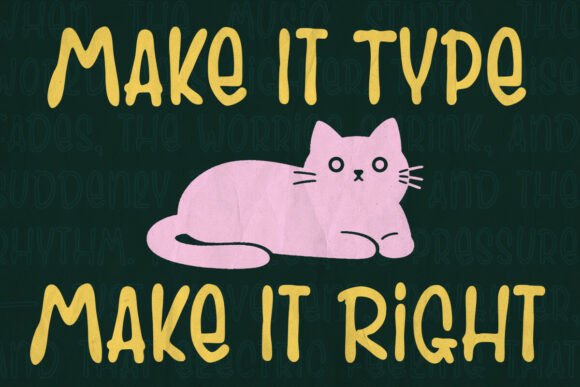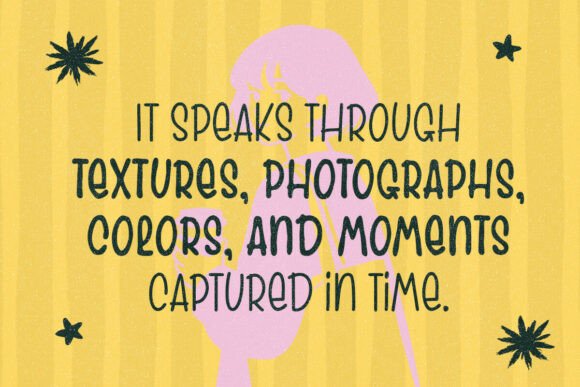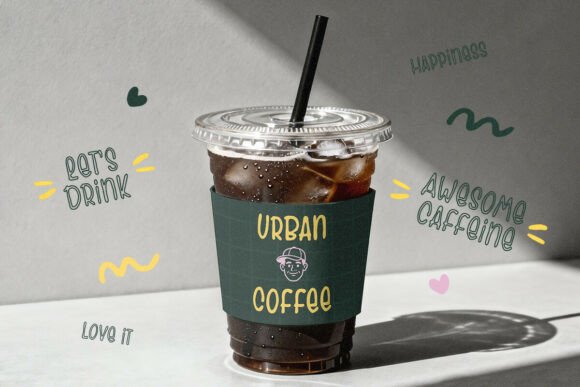
Introduction to Gramel Font
You’ve spent hours agonizing over the perfect typography for your creative project, and yet, it still feels like something’s missing. That’s when you stumble upon the perfect design resource – a font that breathes life into your words. For designers, finding that elusive font can be a game-changer. It’s the difference between a bland, generic look and a truly eye-catching visual identity.
Enter Gramel Font, a stylish handwritten display font that brings natural personality and expressive charm to your creative typography. With its smooth strokes, organic curves, and dynamic character shapes, Gramel Font is the perfect solution for designers who want to add a personal, artistic touch to their visual projects.
Whether you’re working on a free download project or a high-quality commercial design, Gramel Font is a valuable resource that can elevate your work and leave a lasting impression. With its transparent background and three versatile styles – Regular, Bold, and Outline – Gramel Font is the perfect companion for any creative endeavor.
Key Features of Gramel Font
- Gramel Font comes in 3 weights: Light, Regular, and Bold, offering versatility for various design needs.
- Unique characteristics include elegant lines, modern flair, and a sophisticated feel, making it suitable for a wide range of creative projects.
- Supports a wide range of languages, including Latin, Cyrillic, and Greek alphabets, making it a valuable design resource for global projects.
Honest Review: Gramel Font
I recently had the chance to work with the Gramel Font for a creative project and was impressed with its unique style and versatility. As a designer, I’m always on the lookout for high-quality design resources that can elevate my work and help me stand out.
One of the things that I like about the Gramel Font is its ability to work seamlessly with a transparent background, allowing me to add an extra layer of depth and visual interest to my designs.
Here are some of the things that I think work well with the Gramel Font: ✨ Unique and creative style ✨ Wide range of customization options ✨ High-quality design that looks great on any device
However, I did encounter a few limitations when working with the Gramel Font: ⚠️ Limited support for non-Latin scripts ⚠️ Some users may find the font too ornate or distracting
Overall, I think the Gramel Font is a great design resource for anyone looking to add a touch of elegance and sophistication to their work. With a little practice and patience, I think it’s definitely worth the free download.
- Unique style and versatility
- Seamless integration with transparent background
- Wide range of customization options
Gramel Font
Tips for Getting the Most Out of Gramel Font
To get the most out of Gramel Font, use it in conjunction with other design elements to create a cohesive look. Experiment with different font sizes, colors, and alignments to find the perfect combination for your design project.
Gramel Font is a versatile font that can be used in a variety of creative projects, including logos, branding materials, and marketing materials. It’s also a great choice for designers looking for a high-quality font for free download.
Can I use the Gramel Font with a transparent background?
Yes, the Gramel Font is designed to work well with transparent backgrounds. Since it’s a vector-based font, it will scale and render smoothly even with a transparent background. This makes it perfect for creating designs with a clear or gradient background.